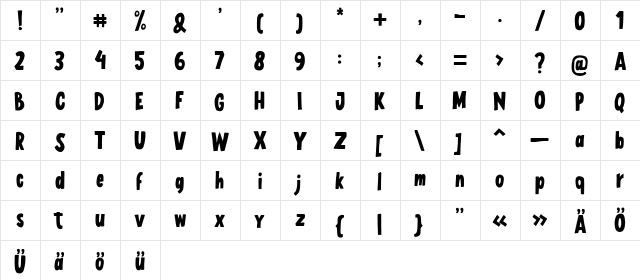
LuTuna Regular
Design Context for LuTuna Typeface
LuTuna is a composed and adaptable typeface that performs quietly and consistently across a wide range of design contexts.